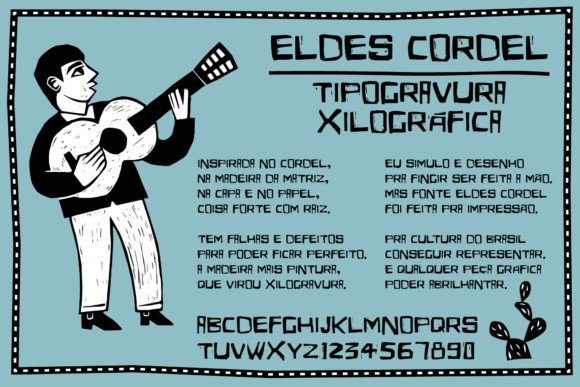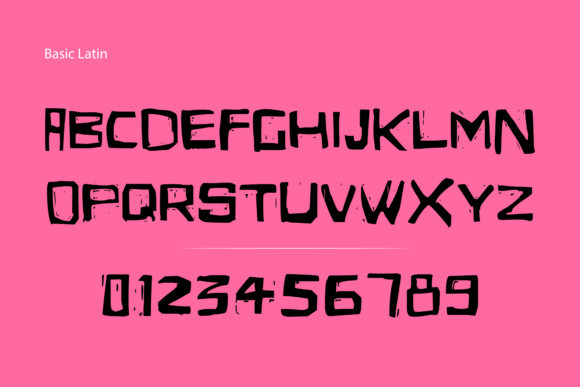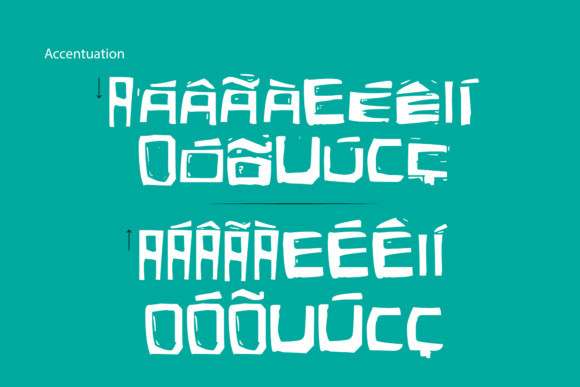
Eldes Cordel Font
Inspired directly by the woodcut — especially in the covers of the Cordel literature leaflets — Eldes Cordel is created mainly to compose graphic pieces that have the Brazilian culture as a reference. This bold typeface features visual characteristics of this unique printing technique, such as the gaps and inaccuracies of the notch in the wood matrix.